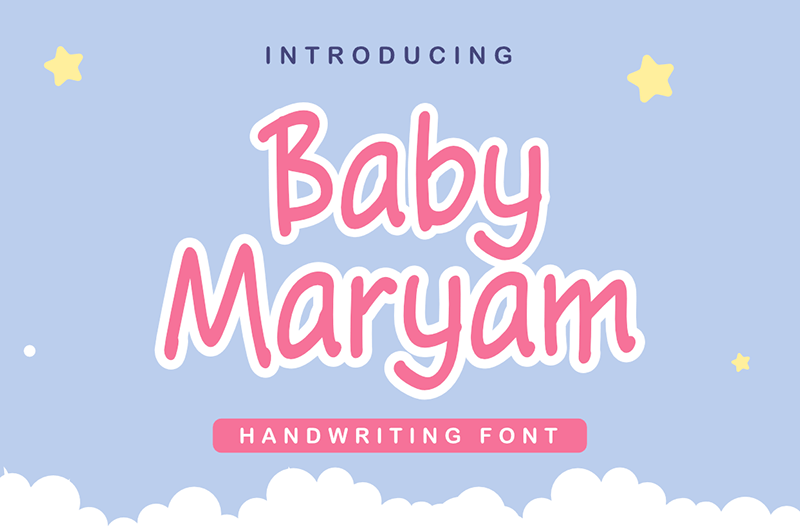
Preview and download Baby Maryam Font. Created by Insan Perkasya in Script Handwritten styles with Free for personal use license.
NOTE: This font is for PERSONAL USE ONLY ! To purchase a commercial license, visit: https://www.creativefabrica.com/product/baby-maryam/ref/4292297/ Introducing, �Baby Maryam� font is a font with a cute and unique handwriting style. Handwritten with natural characters that add a cute and unique feel to this font. Contact : insanperkasya@gmail.com IG : @insanperkasya |